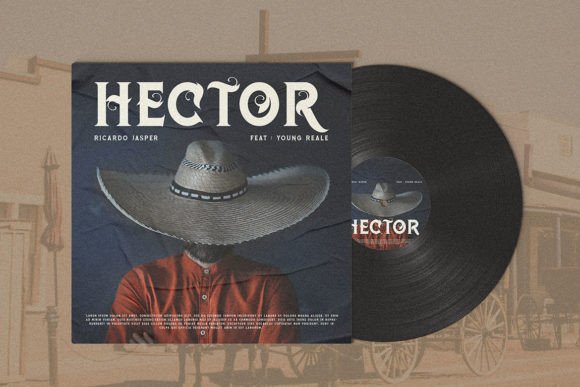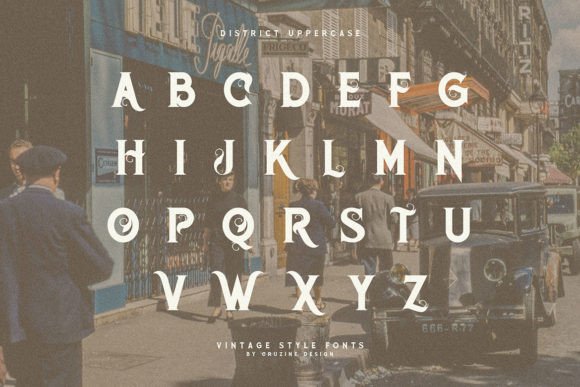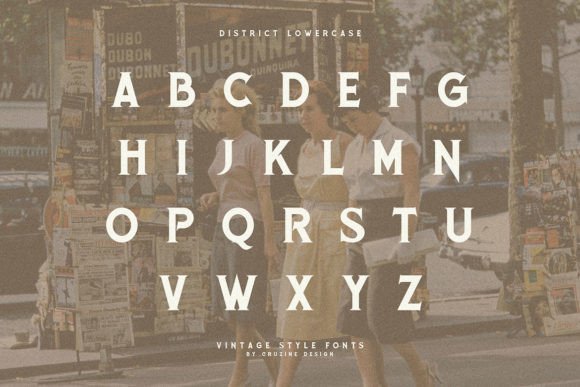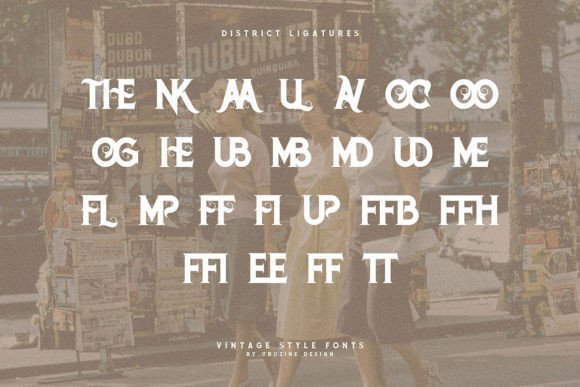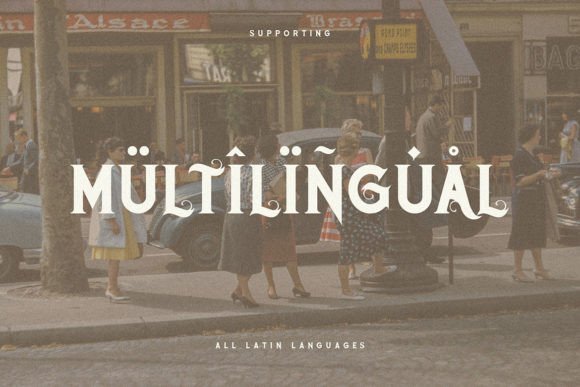
Introducing District Font: A Timeless Vintage Serif for Classic Designs
In the world of typography, fonts play a crucial role in setting the tone and aesthetic of a design. For designers and crafters looking to add a touch of vintage charm to their projects, District Font is an excellent choice. This vintage serif font boasts a unique twist, blending retro design with timeless appeal. In this article, we’ll explore the features and benefits of District Font, and why it’s a must-have for creating classic and sophisticated designs.
A Retro Design with Timeless Appeal
District Font is a carefully crafted vintage serif font that exudes a sense of nostalgia and classic sophistication. Its retro design is reminiscent of traditional printing techniques, while its timeless appeal ensures it remains relevant in modern design applications. The font’s distinctive features, such as its elegant serifs and refined letterforms, make it perfect for creating a classic aesthetic in branding, editorial layouts, and signage.
Key Features of District Font
• Unique Twist: District Font boasts a unique twist on traditional serif fonts, setting it apart from more generic fonts.
• Retro Design: The font’s retro design is inspired by classic printing techniques, giving it a nostalgic feel.
• Timeless Appeal: Despite its retro roots, District Font has a timeless quality that ensures it remains relevant in modern design applications.
• Elegant Serifs: The font’s elegant serifs add a touch of sophistication and refinement to any design.
• Refined Letterforms: Each letterform has been carefully crafted to ensure a high level of legibility and aesthetic appeal.
Use Cases for District Font
District Font is a versatile font that can be used in a variety of design applications, including:
• Branding: Create a classic and sophisticated brand identity with District Font, perfect for luxury brands, fashion labels, and high-end products.
• Editorial Layouts: Use District Font to add a touch of vintage charm to editorial layouts, such as magazines, newspapers, and books.
• Signage: The font’s elegant serifs and refined letterforms make it perfect for signage, including storefronts, billboards, and directional signs.
Why Choose District Font?
In conclusion, District Font is a must-have for designers and crafters looking to add a touch of vintage charm to their projects. Its unique twist on traditional serif fonts, retro design, and timeless appeal make it perfect for creating classic and sophisticated designs. With its elegant serifs, refined letterforms, and attention to detail, District Font is the perfect choice for branding, editorial layouts, and signage. Whether you’re a seasoned designer or just starting out, District Font is an excellent addition to your font library.